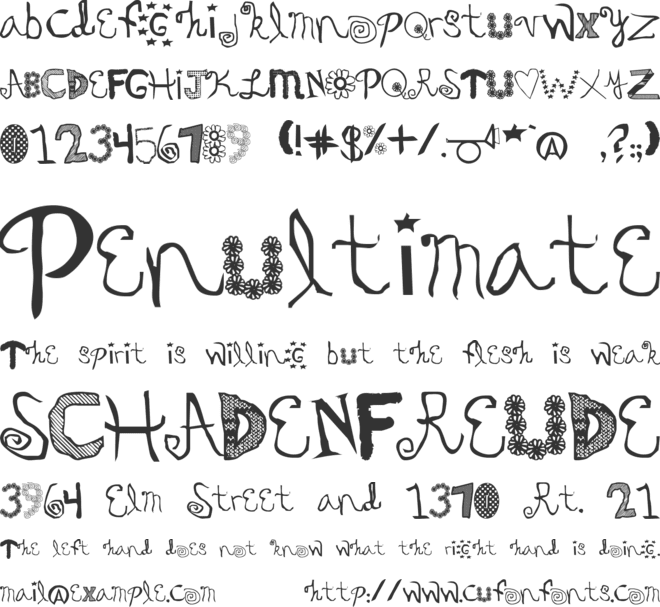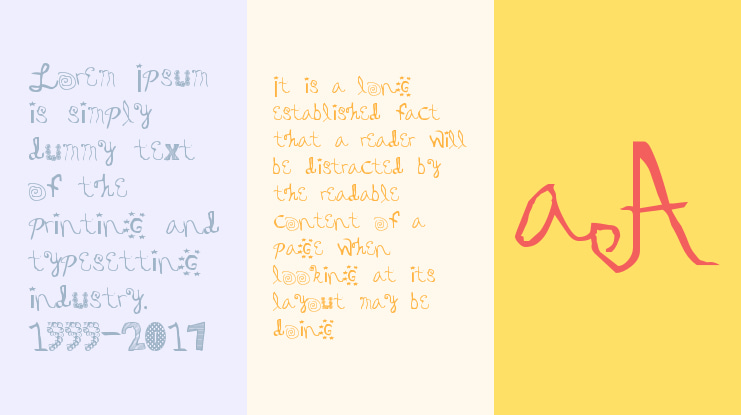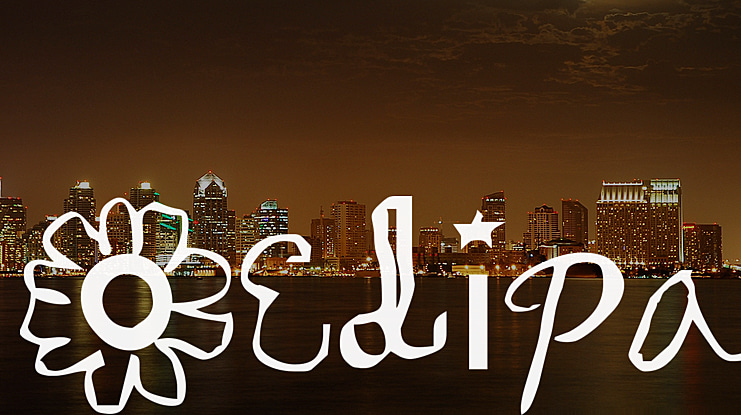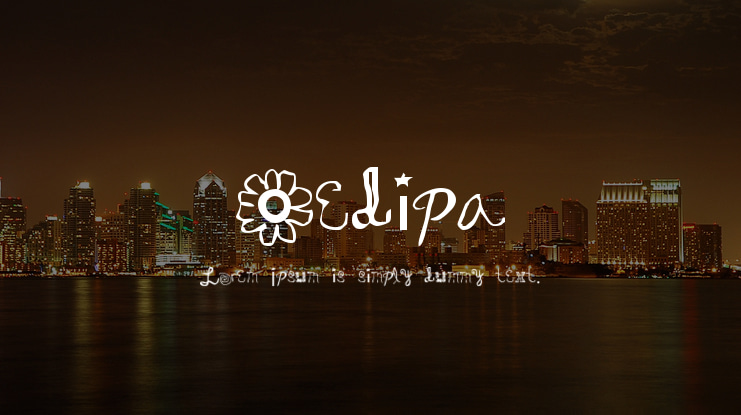
Oedipa Font
She's a sweet southern California housewife who can match wits with any former child star and may or may not be on acid but is definitely more than a little confused about the estate of her late lover, Pierce Inverarity.
Oedipa is the much cooler (well, my humble opinion) companion to Pierce Inverarity. I created this face for dummy spec pages I designed for Thomas Pynchon's intriguing satirical novel, The Crying of Lot 49. There's three other faces in my Trystero collection -- Baby Igor, W.A.S.T.E., and Mucho... they'll be here soon.
This face is best described as a housewife on acid, doodling on a desktop because maybe she's bored or maybe she's communicating in secret code. It's kind of like the writing that you'd use in junior high, when you dreamed in math class and doodled the name of your dearly beloved over and over, with all the appropriate hormonal embellishments.
There's 26 caps, 26 lower cases, all the numbers and punctuation and special characters you'll ever need, and the W.A.S.T.E. logo to add an air of acid-trip mystique to your favorite desktop publishing/word processing project.